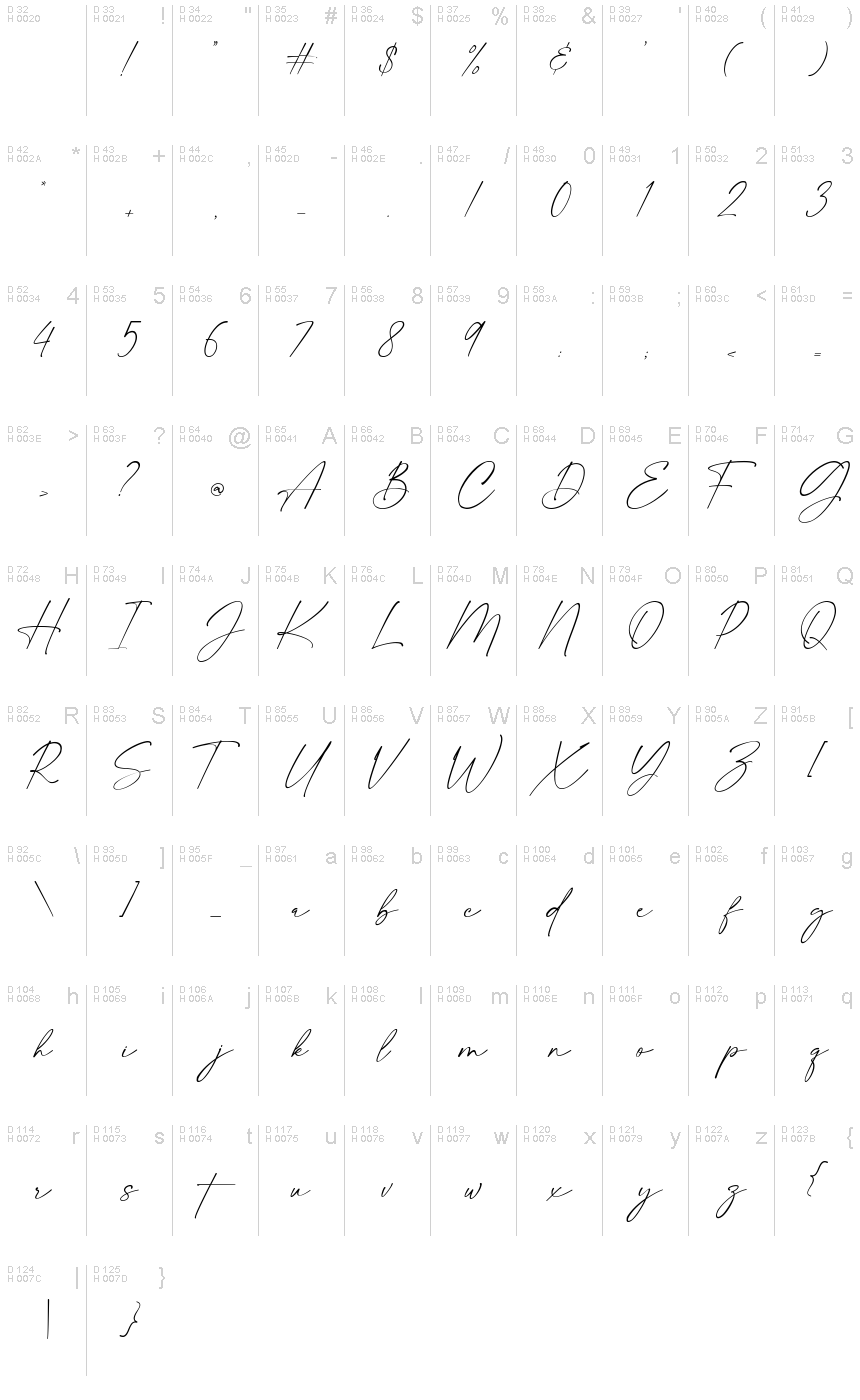
Fellaure Demo
Fellaure, crafted by MJB Letters, exudes the charm of a personal touch with its handwritten signature style. Its elegant strokes flow effortlessly, capturing the essence of individuality and sophistication. The font dances between casual flair and refined grace, making it a versatile choice for various design applications.
With its light touch, Fellaure lends itself beautifully to invitations, branding materials, and personal stationery that require a bespoke feel. It's particularly well-suited for contexts where an intimate, human connection is desired-wedding paraphernalia, book covers, or boutique labels would be graced with its presence. Fellaure's distinct personality ensures that any text will leave a memorable impression.